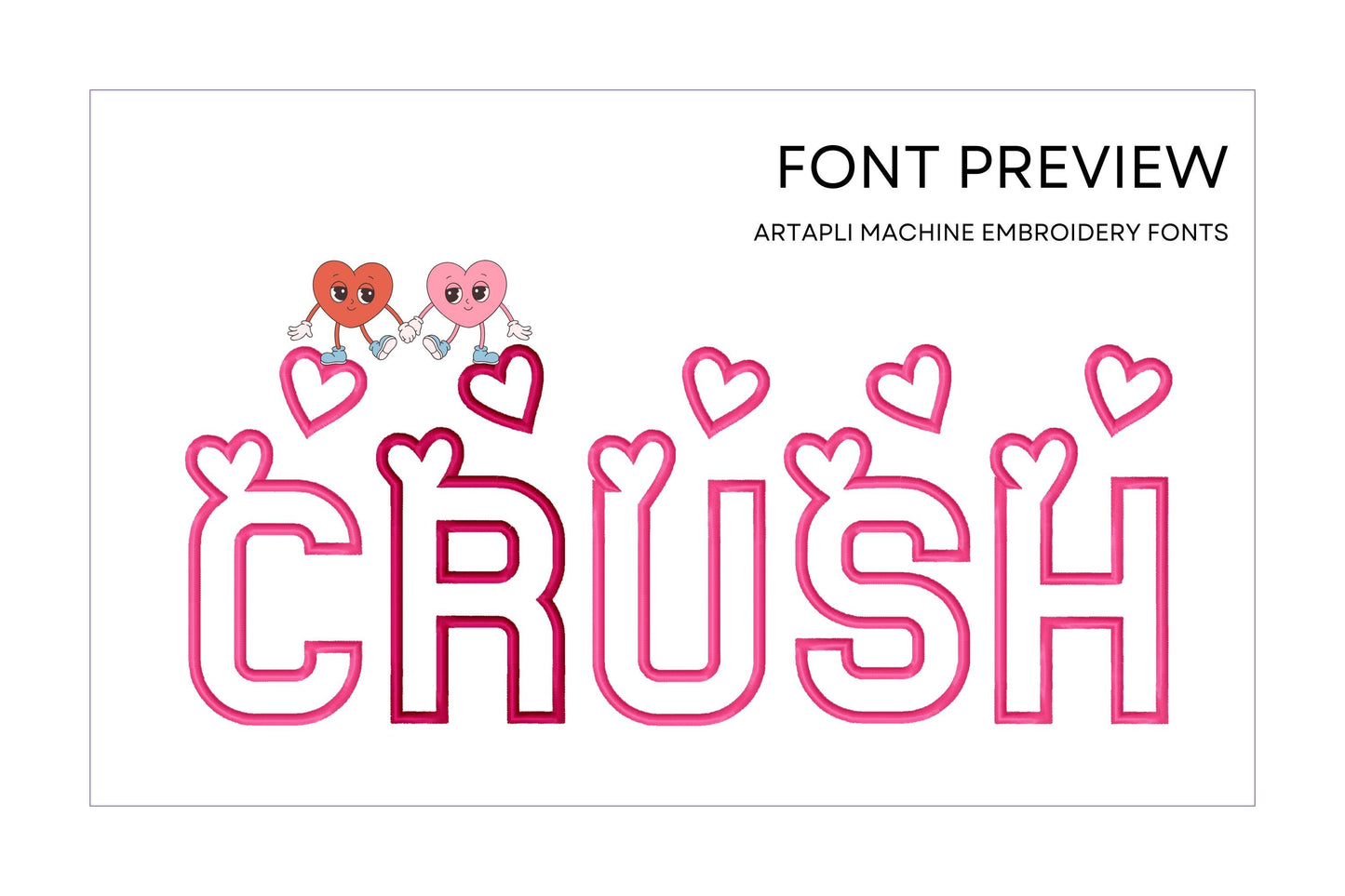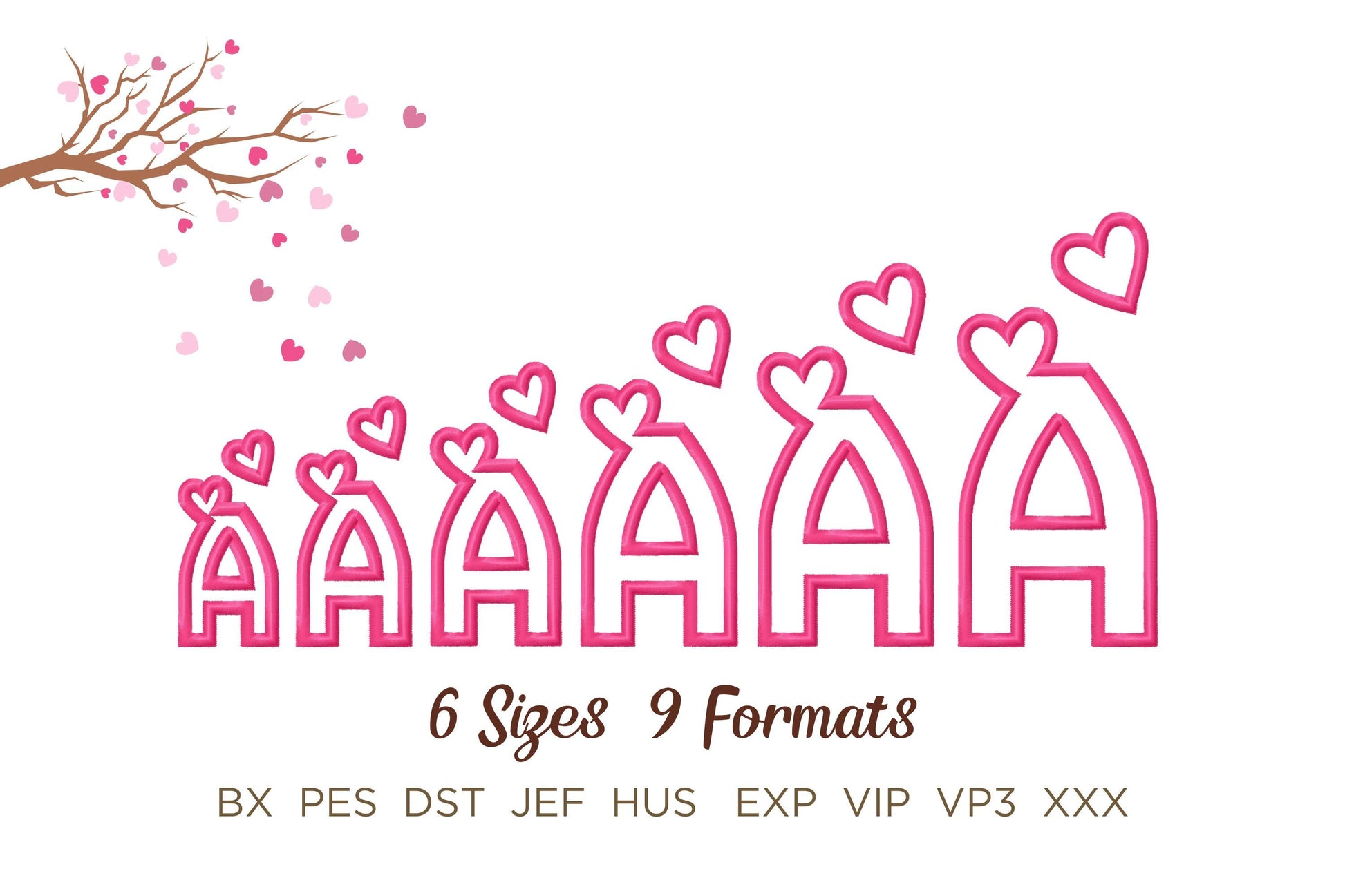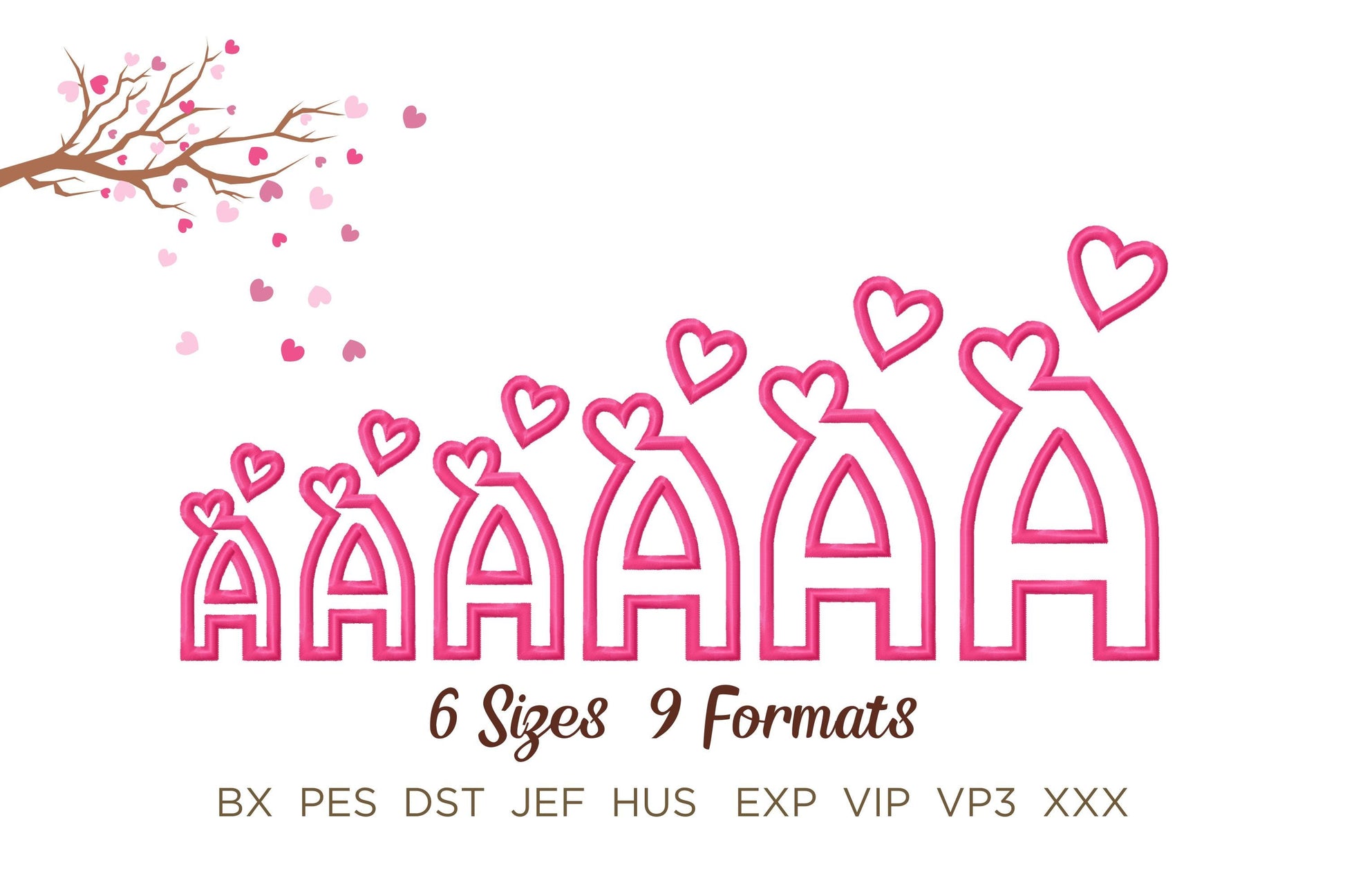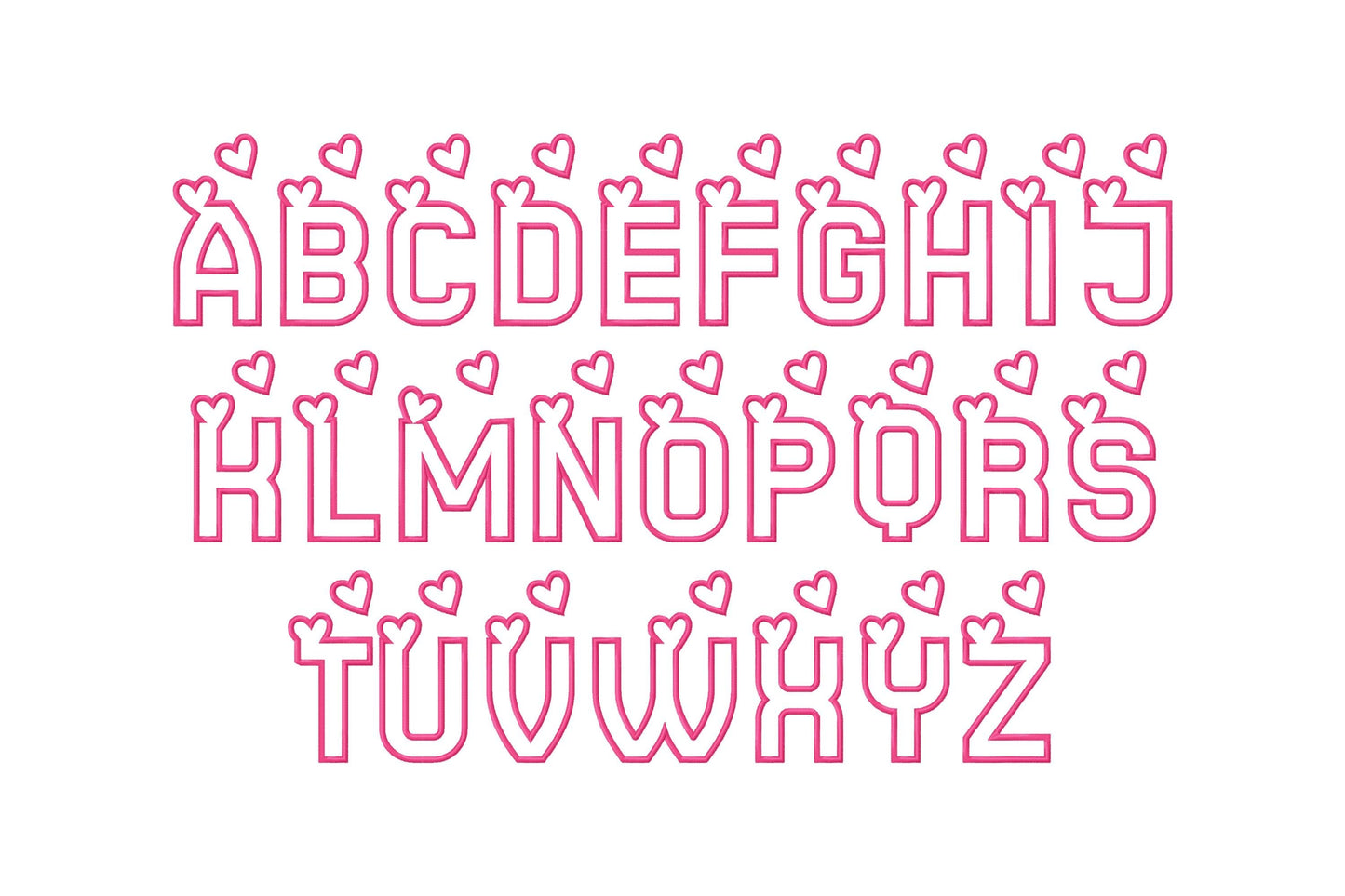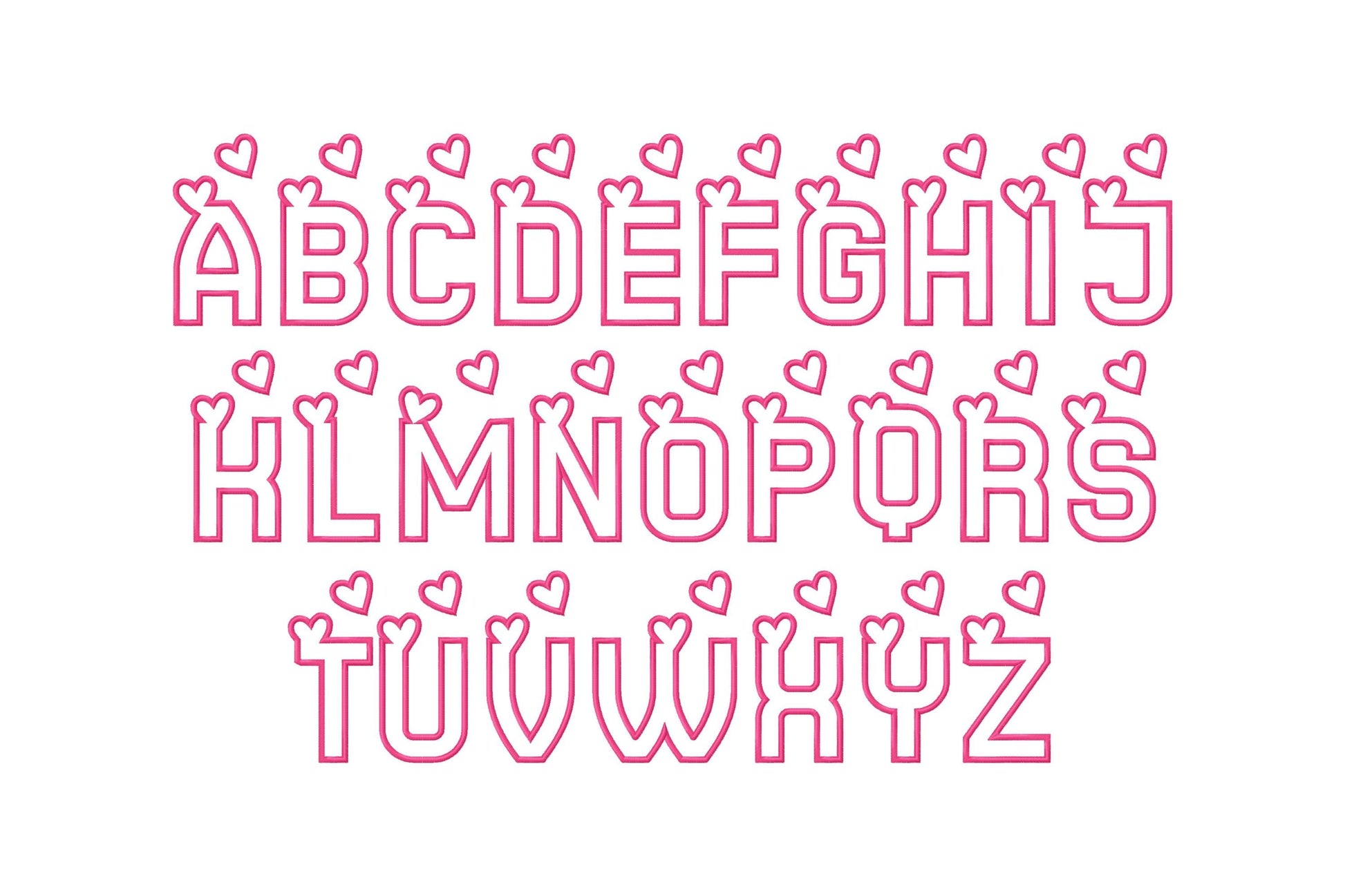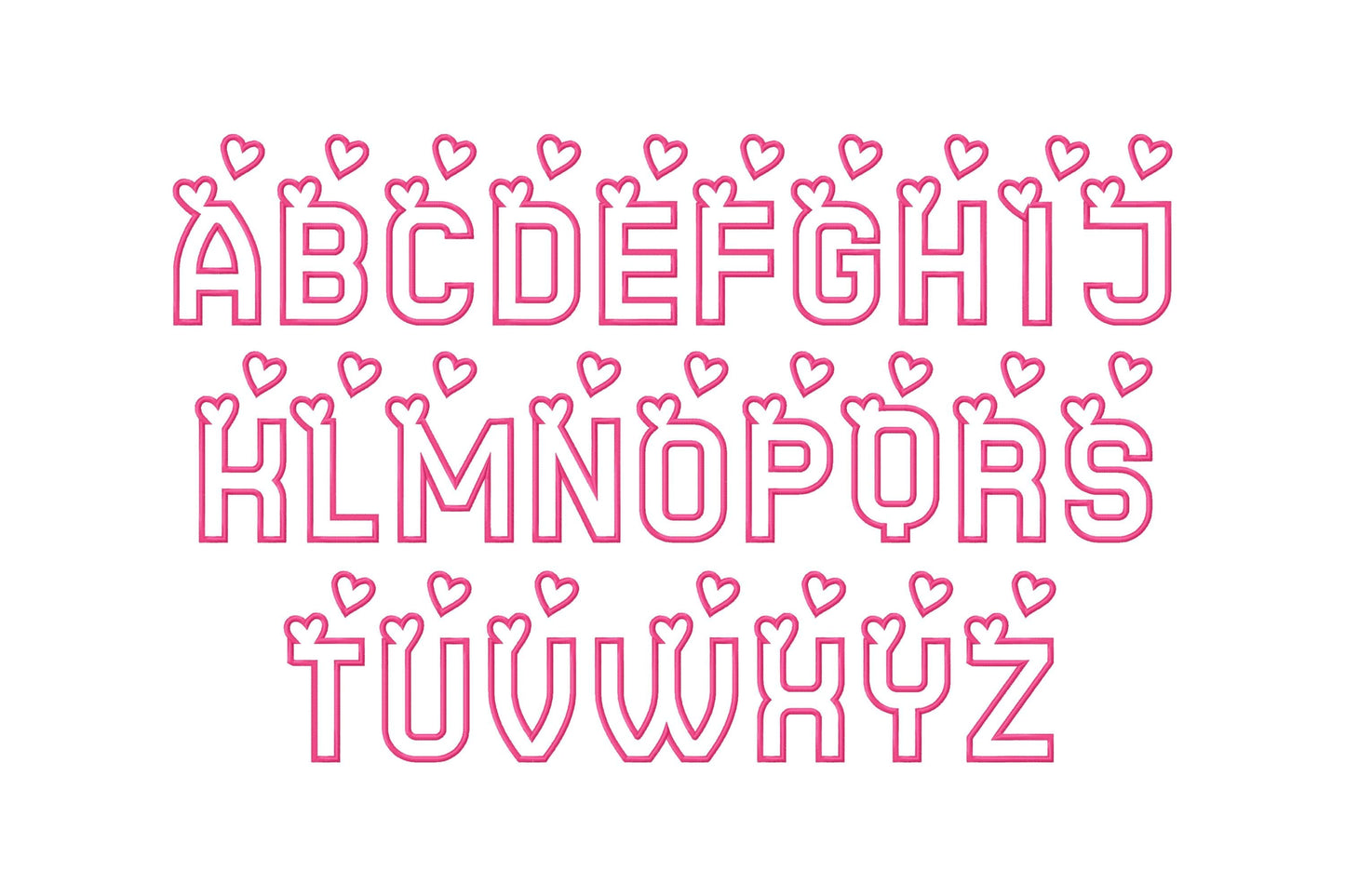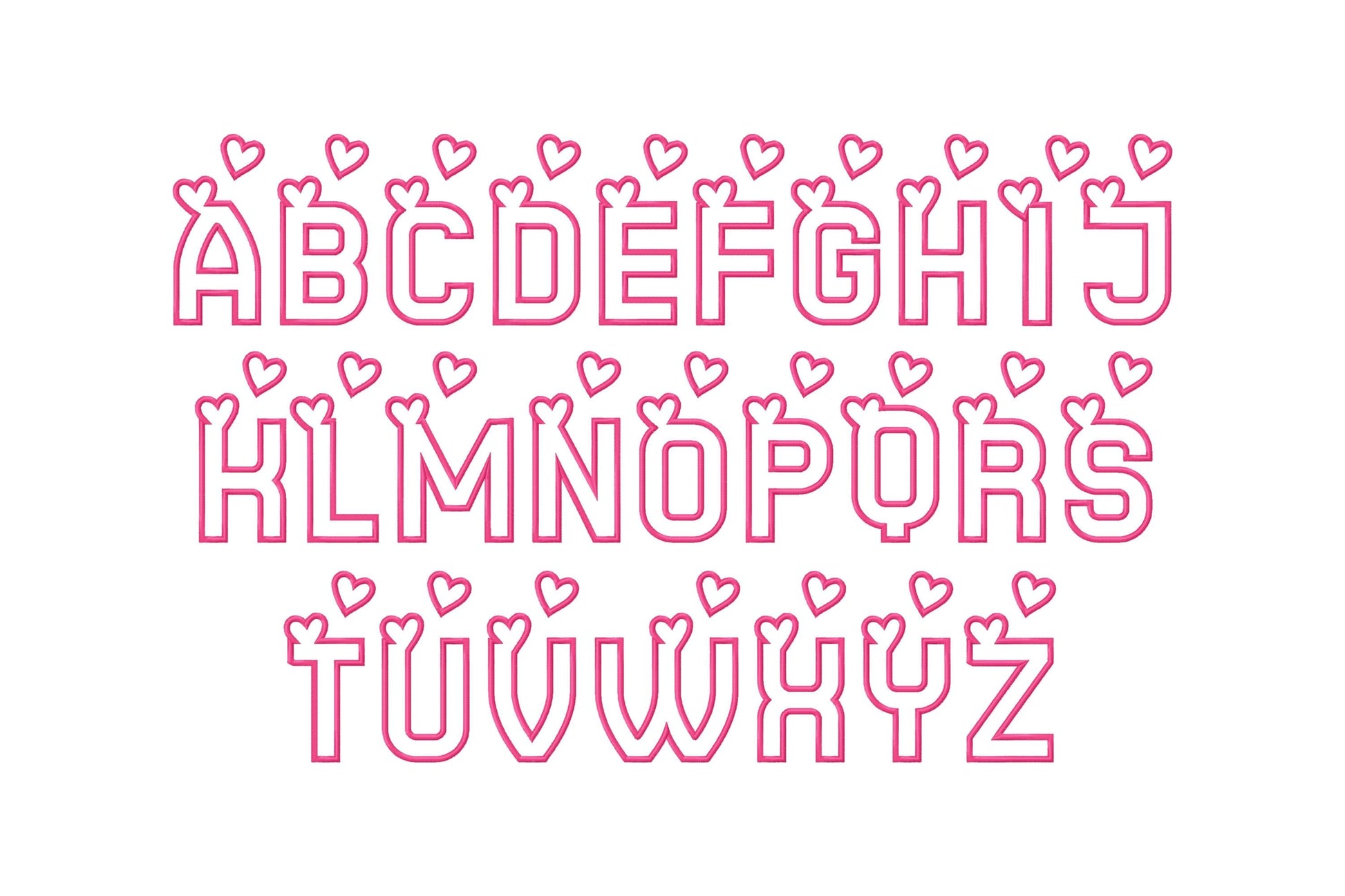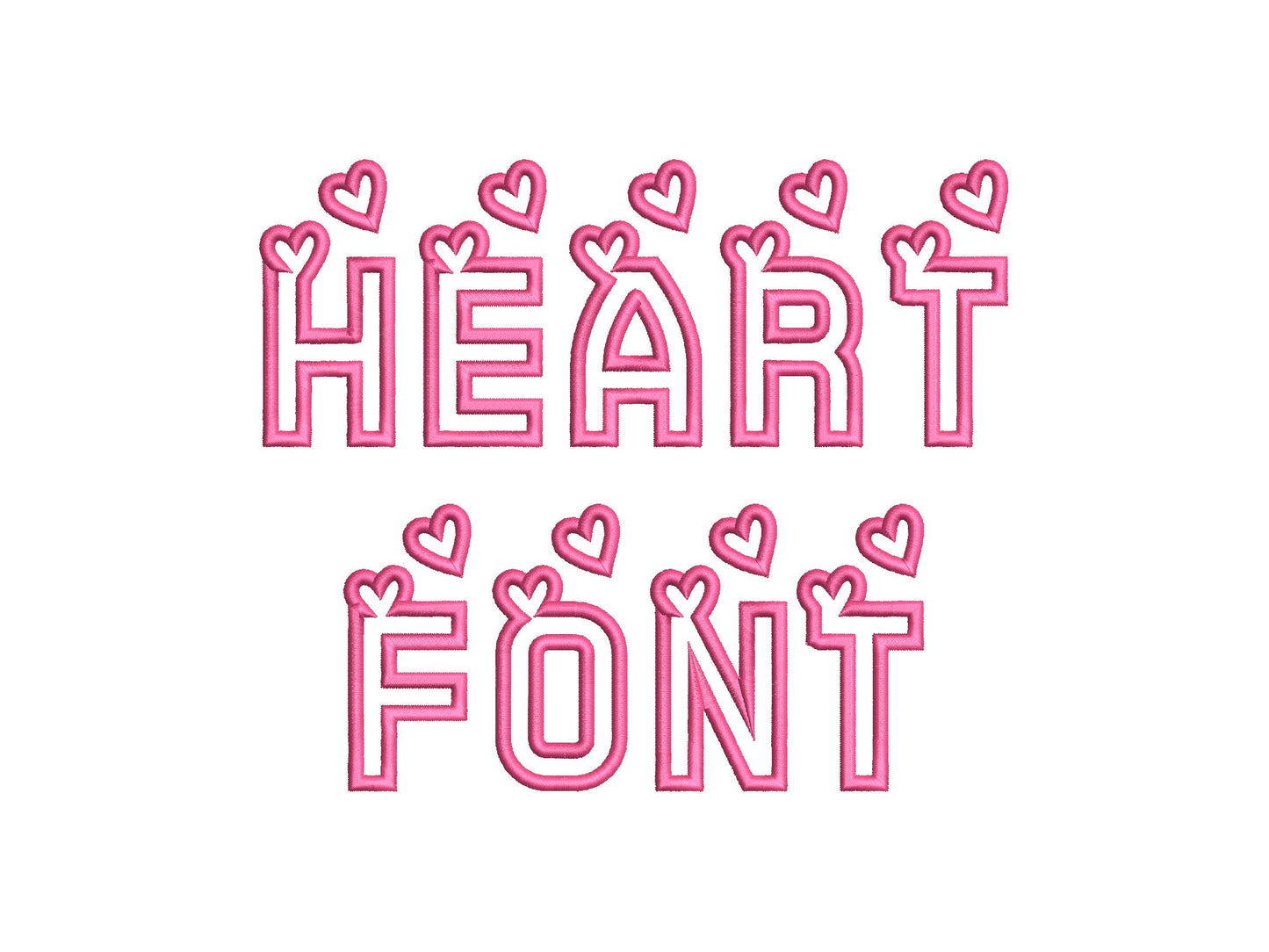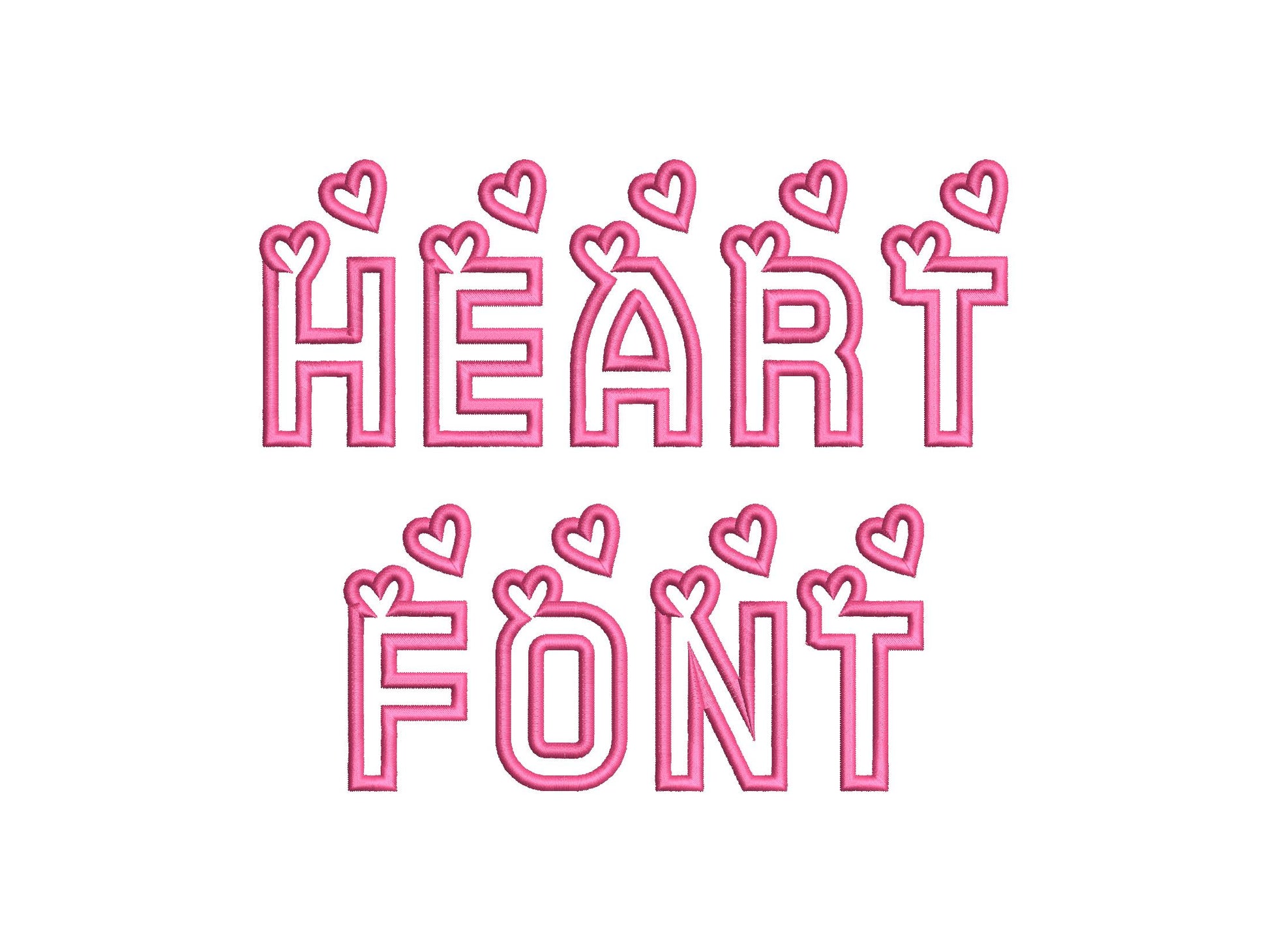
Heart Monogram Applique Font Set of 2
Or click to open the linkTwo heart-shaped applique alphabets in one set. Sweet for Valentine's shirts, pillows, kids' names and gifts.
Two slightly different alphabets, each with uppercase letters A to Z, in six sizes: 2.6, 3, 3.3, 4, 4.5 and 5 inches.
- Two heart applique alphabets
- Uppercase letters A-Z
- 6 sizes, 2.6 to 5 in